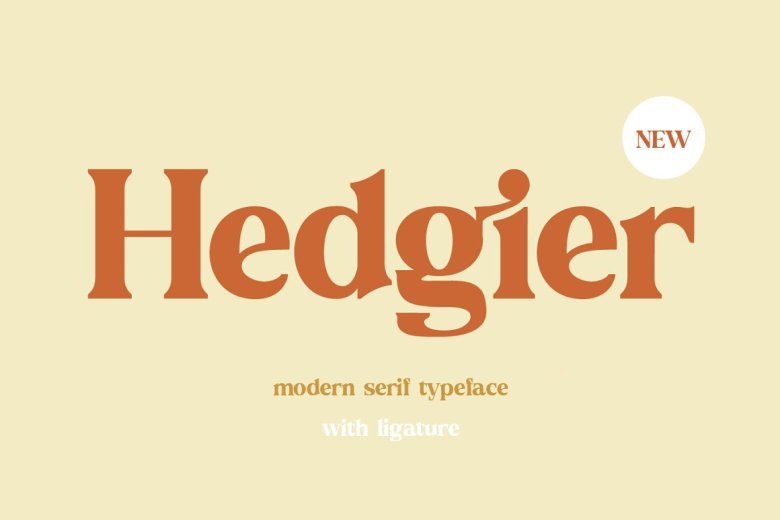
Hedgier Font
Hedgier Font is a bold modern serif typeface with weiss roman style. Complement by the width of each letter creates a modern feeling and is good for anything from magazines, logos, branding, photography, invitations, wedding invitations, quotes, blog headers, posters, advertisements, postcards, books, websites etc.
Hedgier Serif Typeface